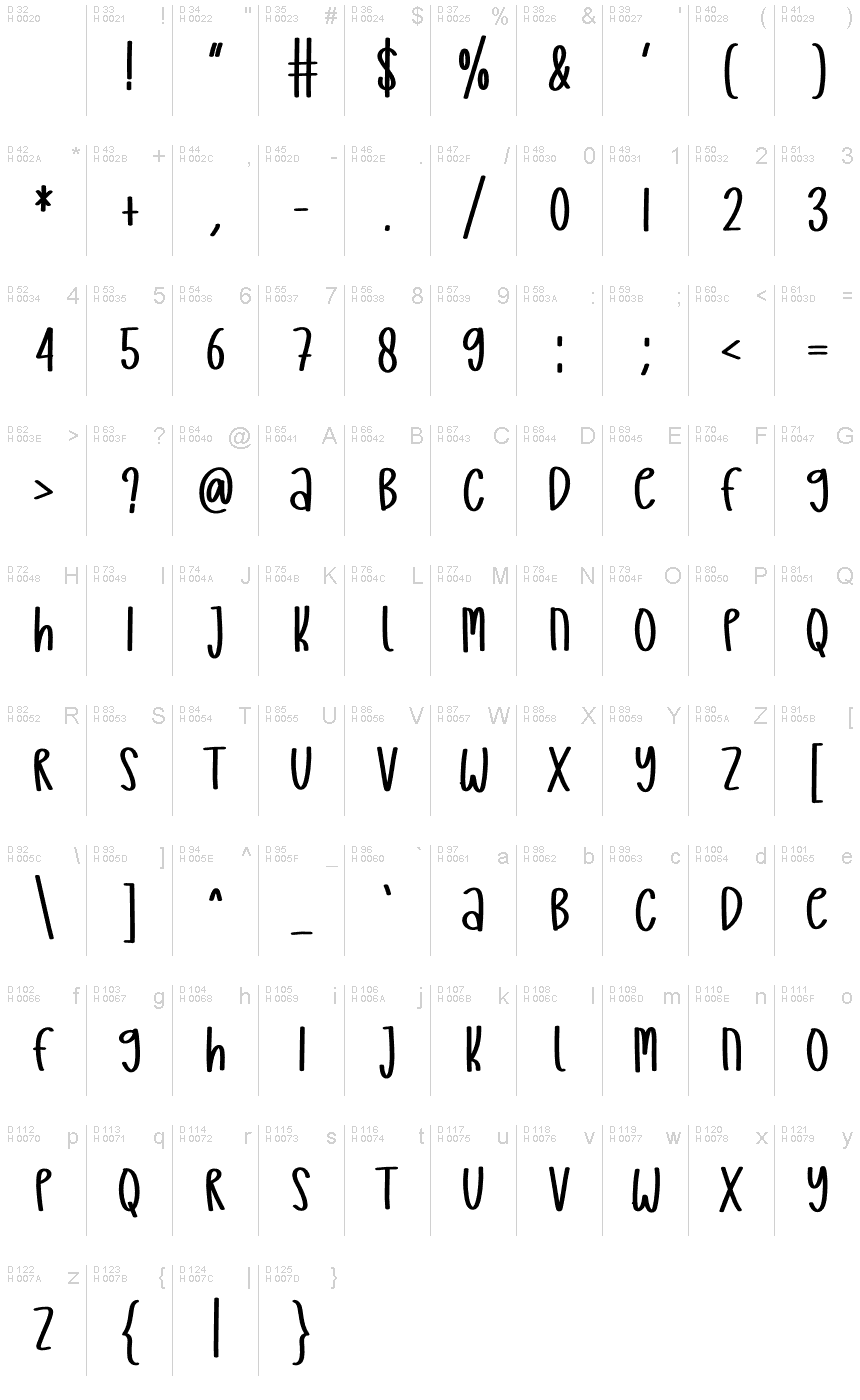
Music Stars
Music Stars, the latest creation by scratchones, is a stunning handwritten font that exudes creativity and originality. Its semi-light weight and condensed width make it perfect for projects where space is limited, such as album covers or music posters. The playful, yet sophisticated style of Music Stars will add a touch of personality to any design project - from event flyers to social media graphics. Let your imagination run wild with Music Stars and watch as your designs come to life with this unique font.